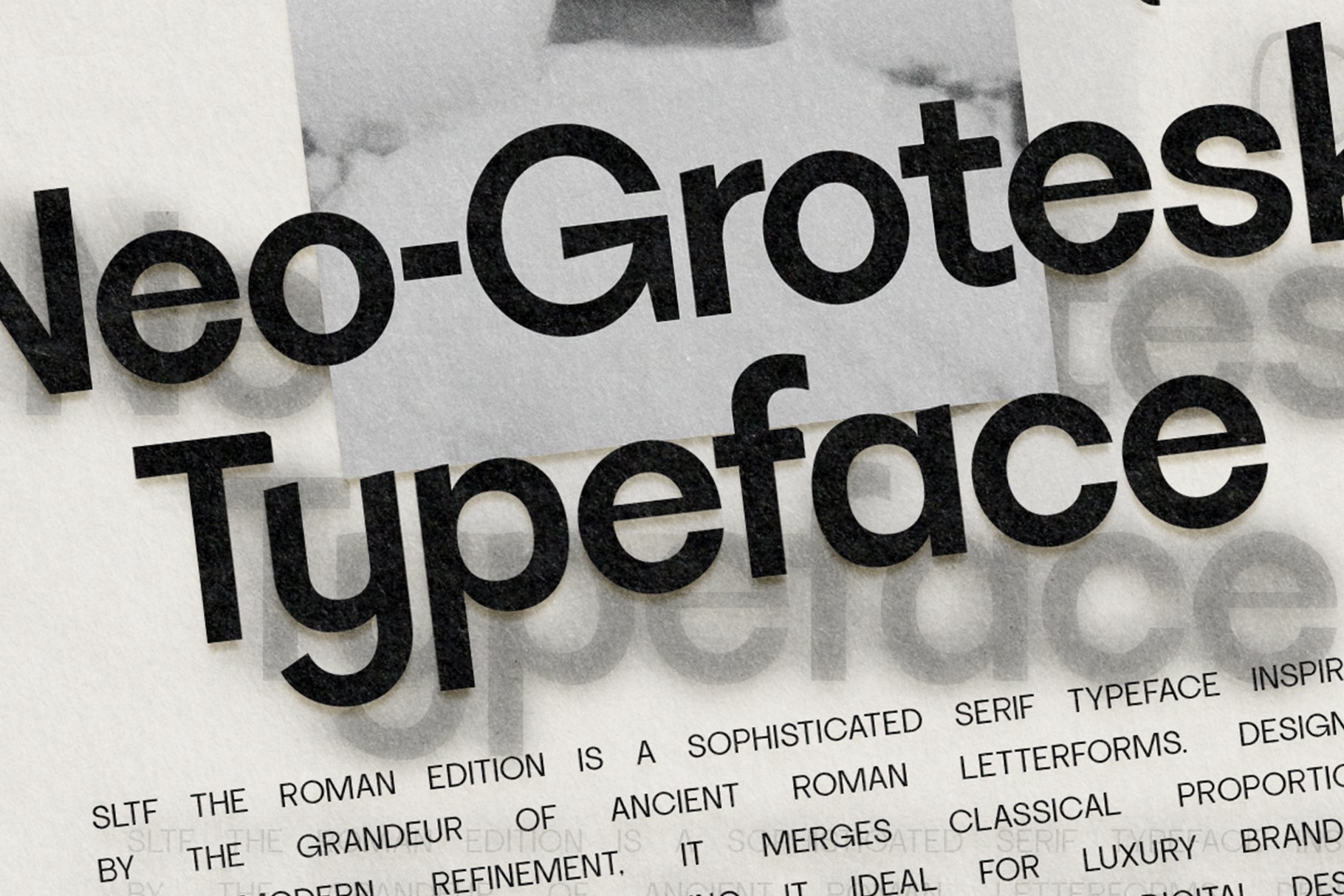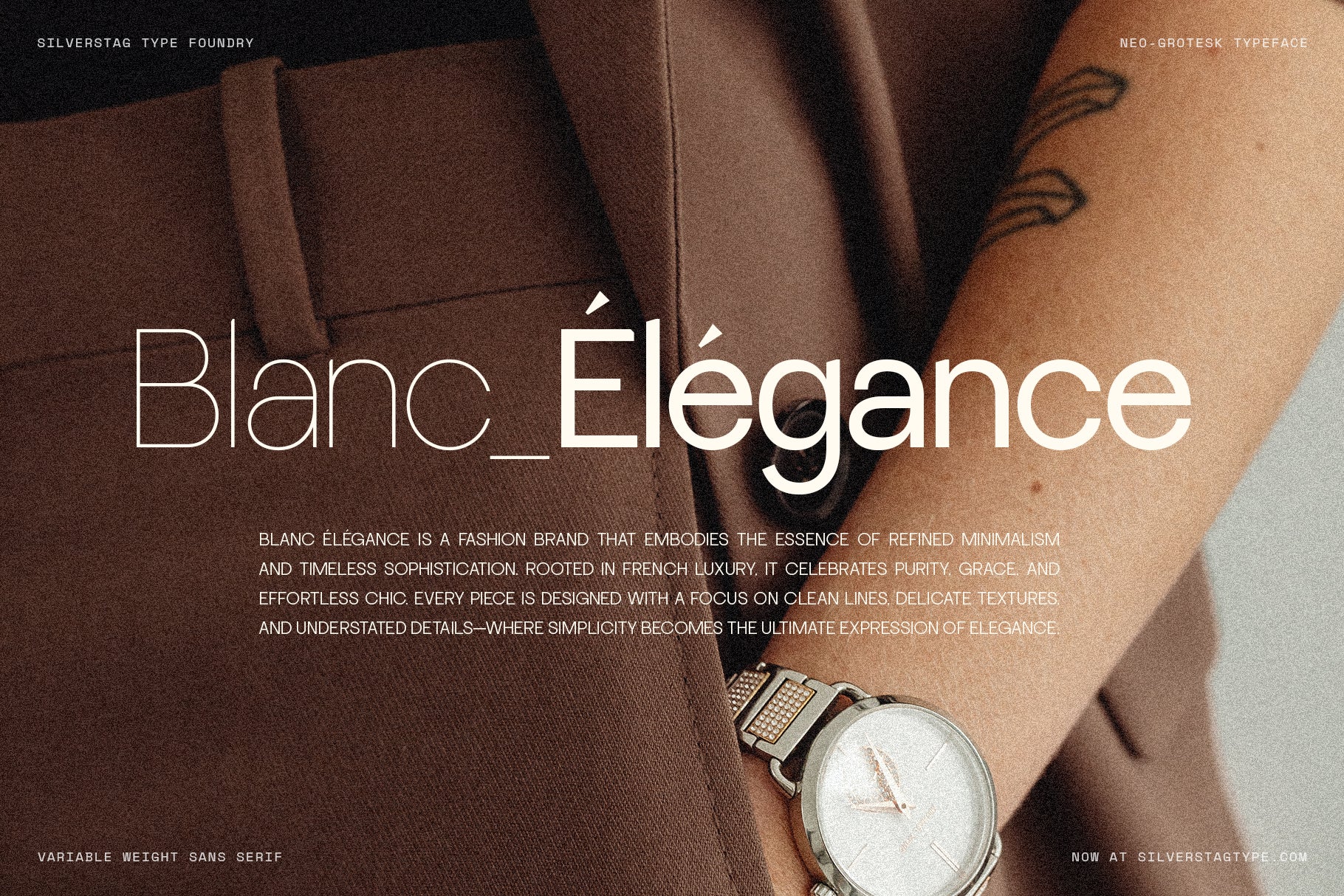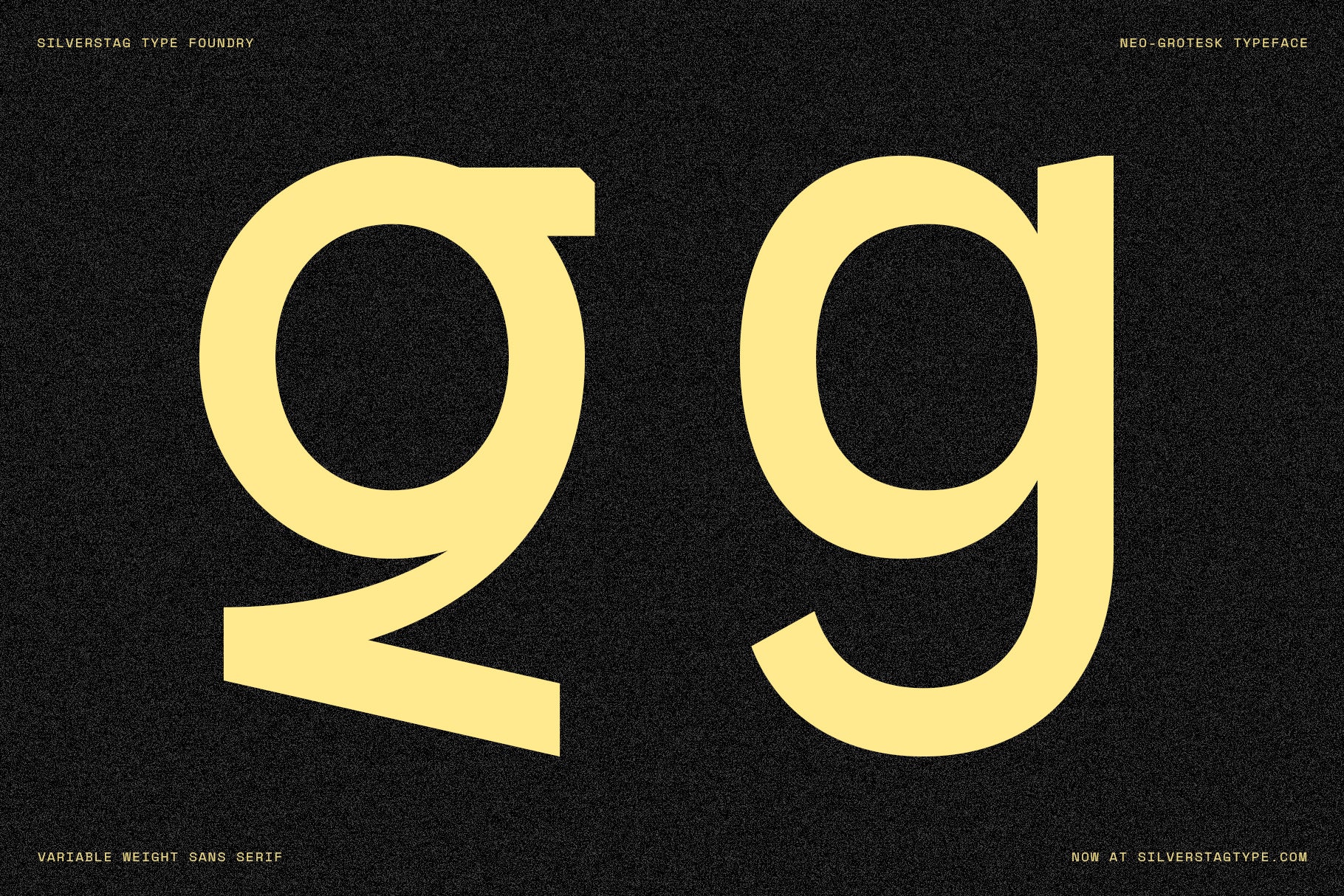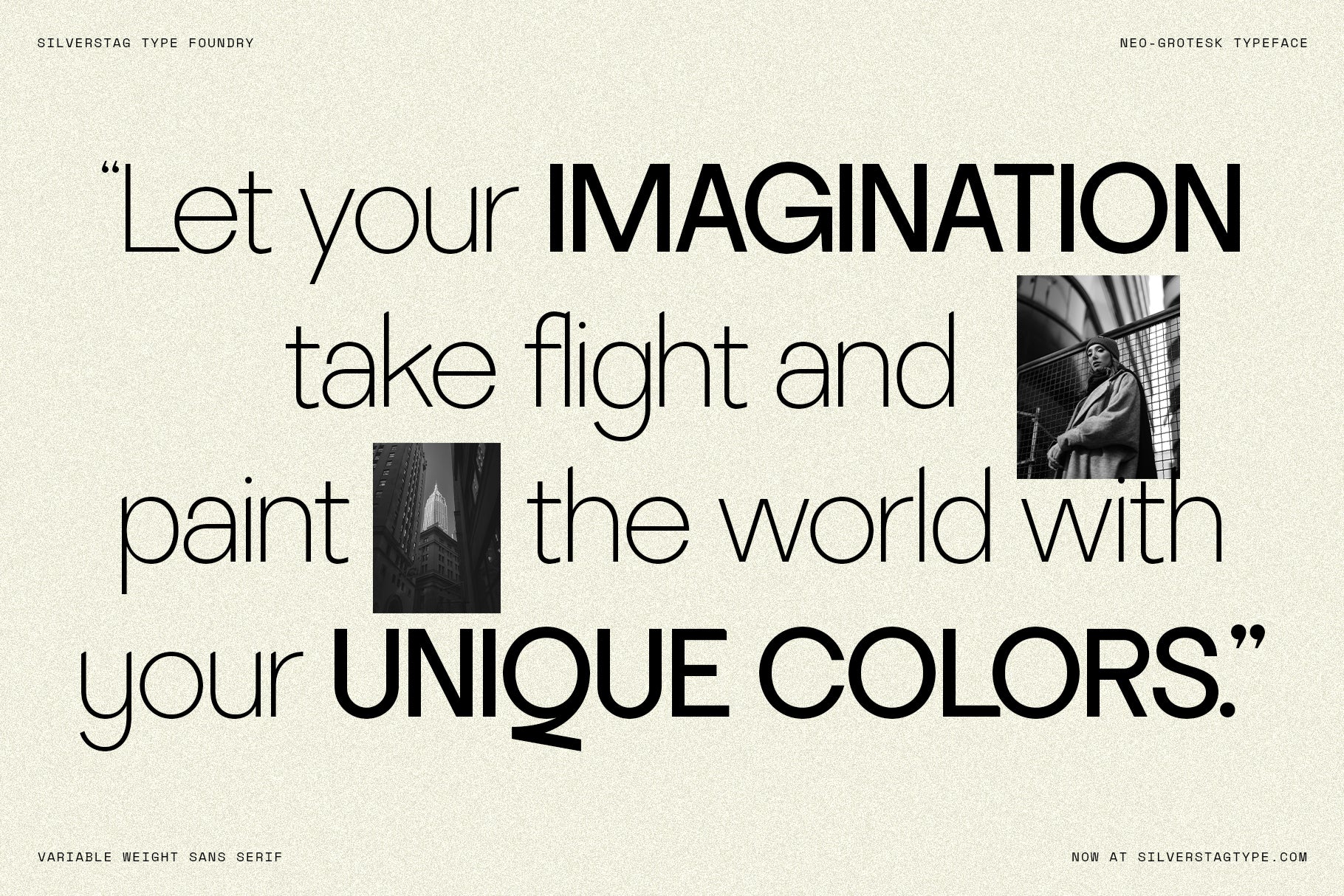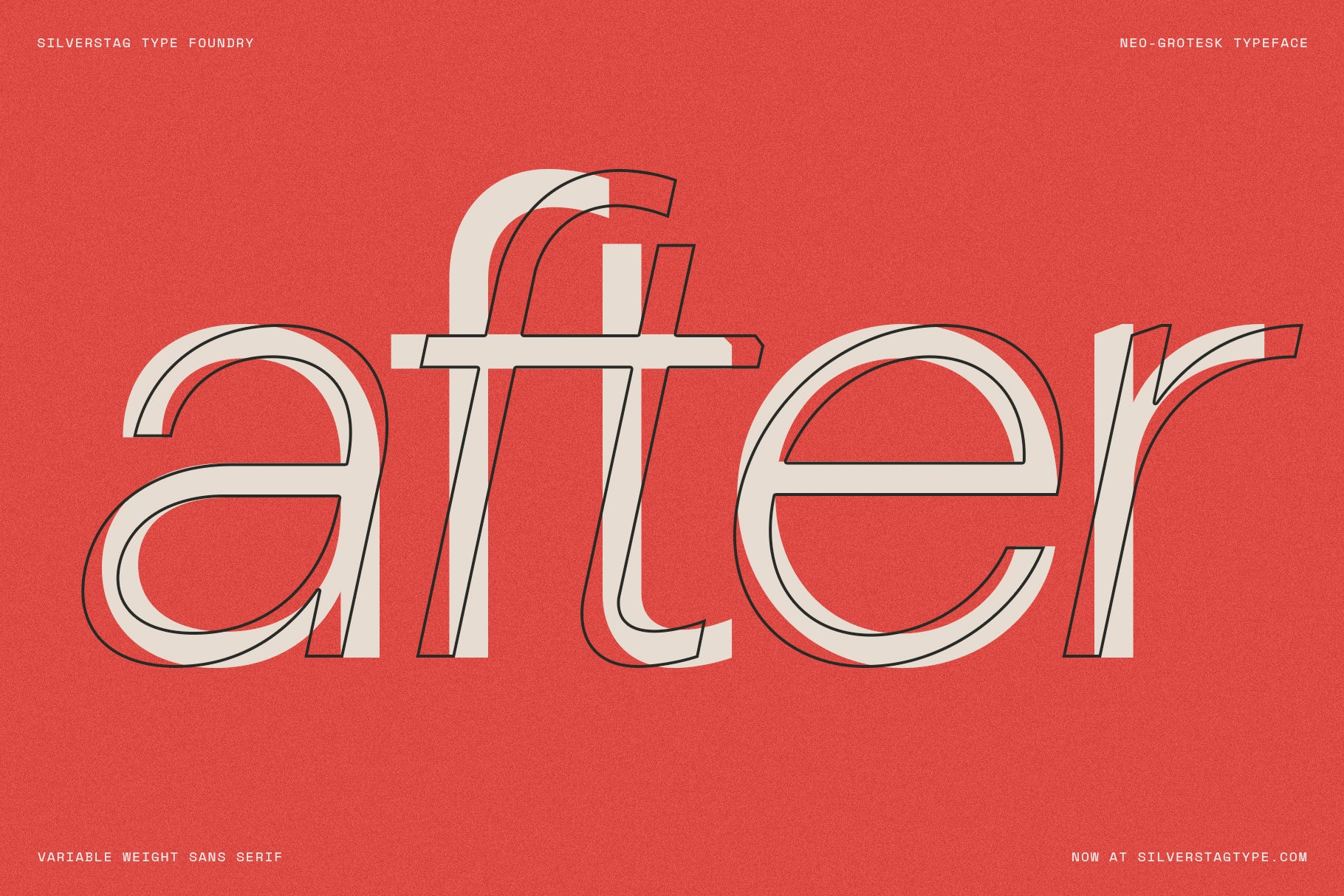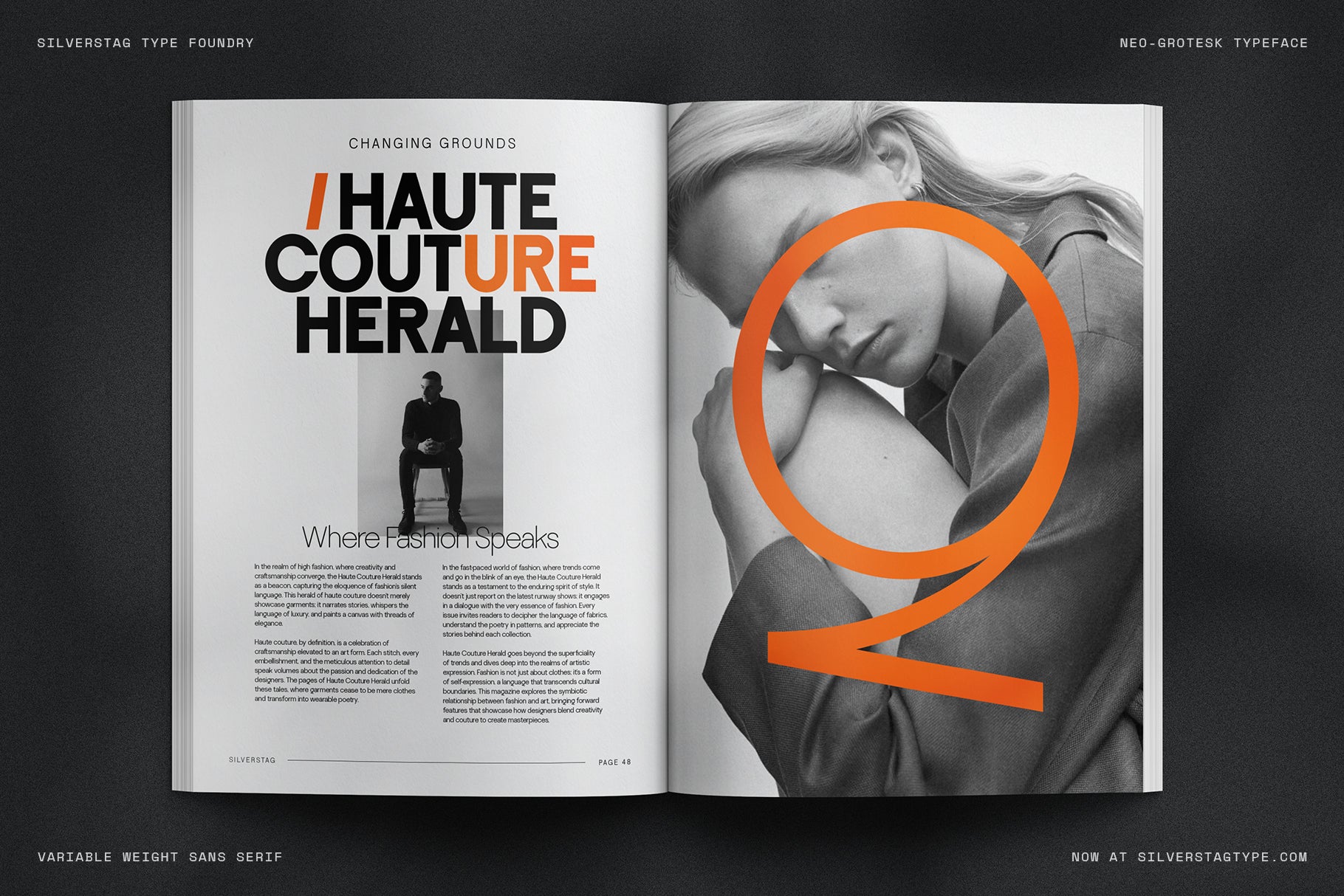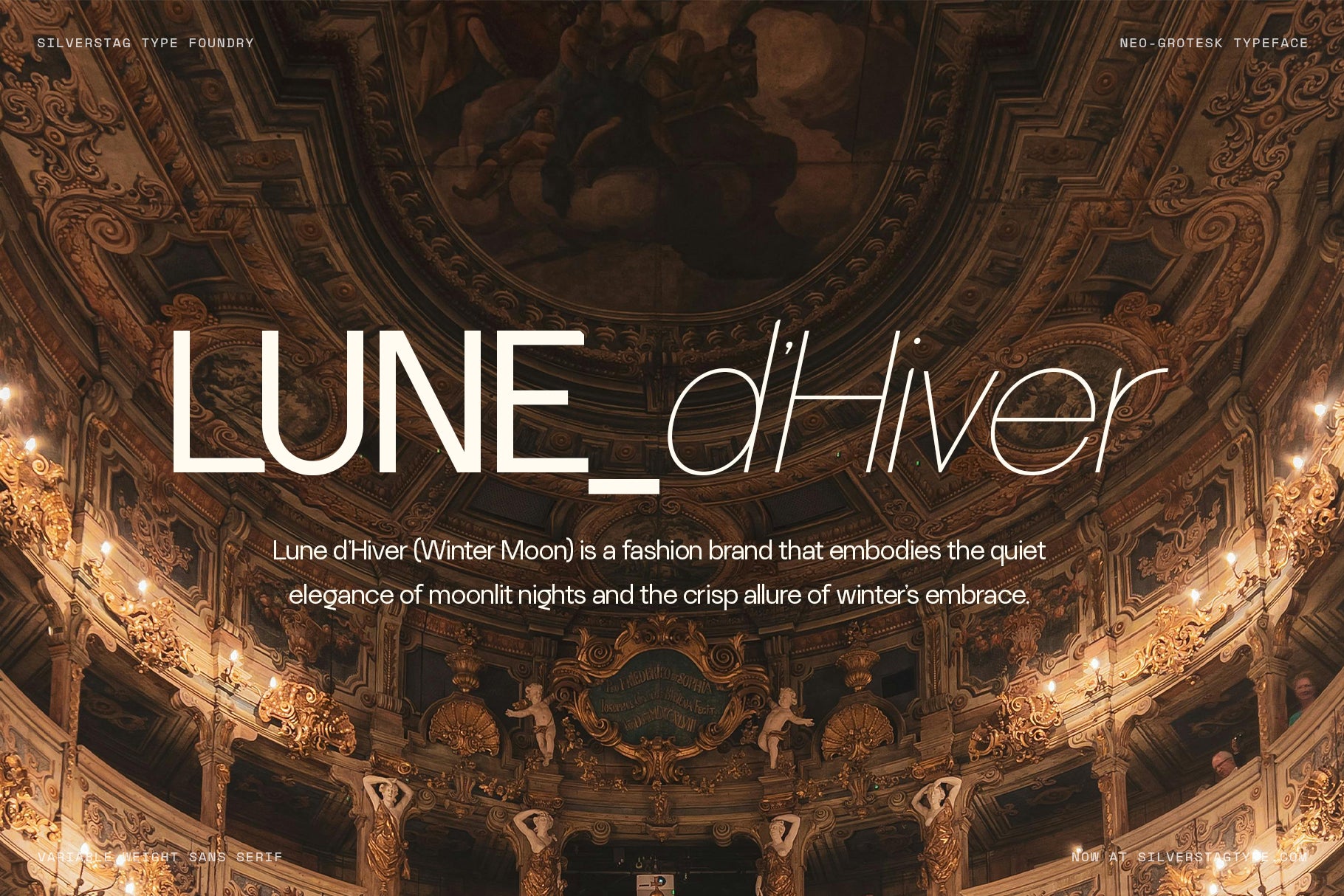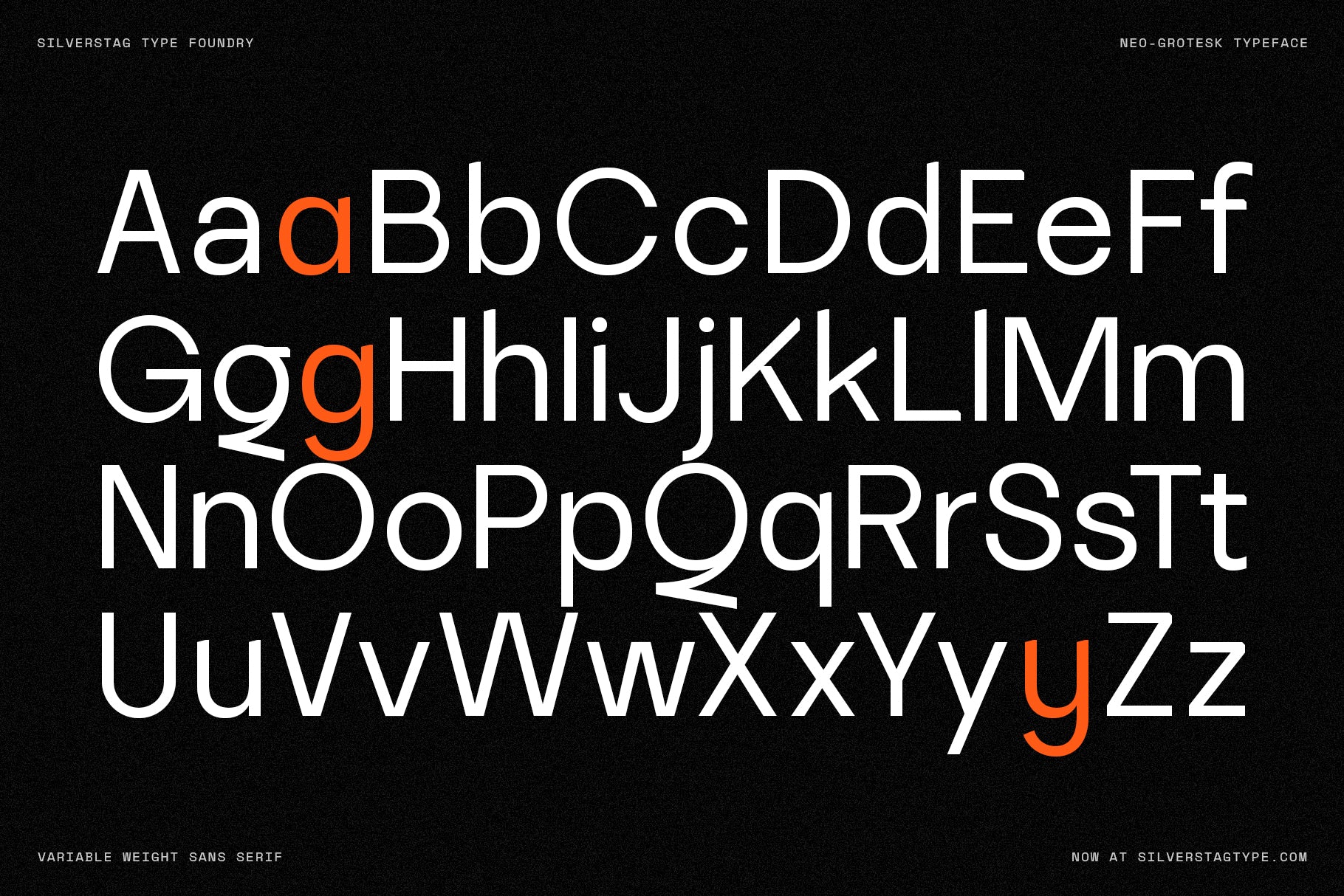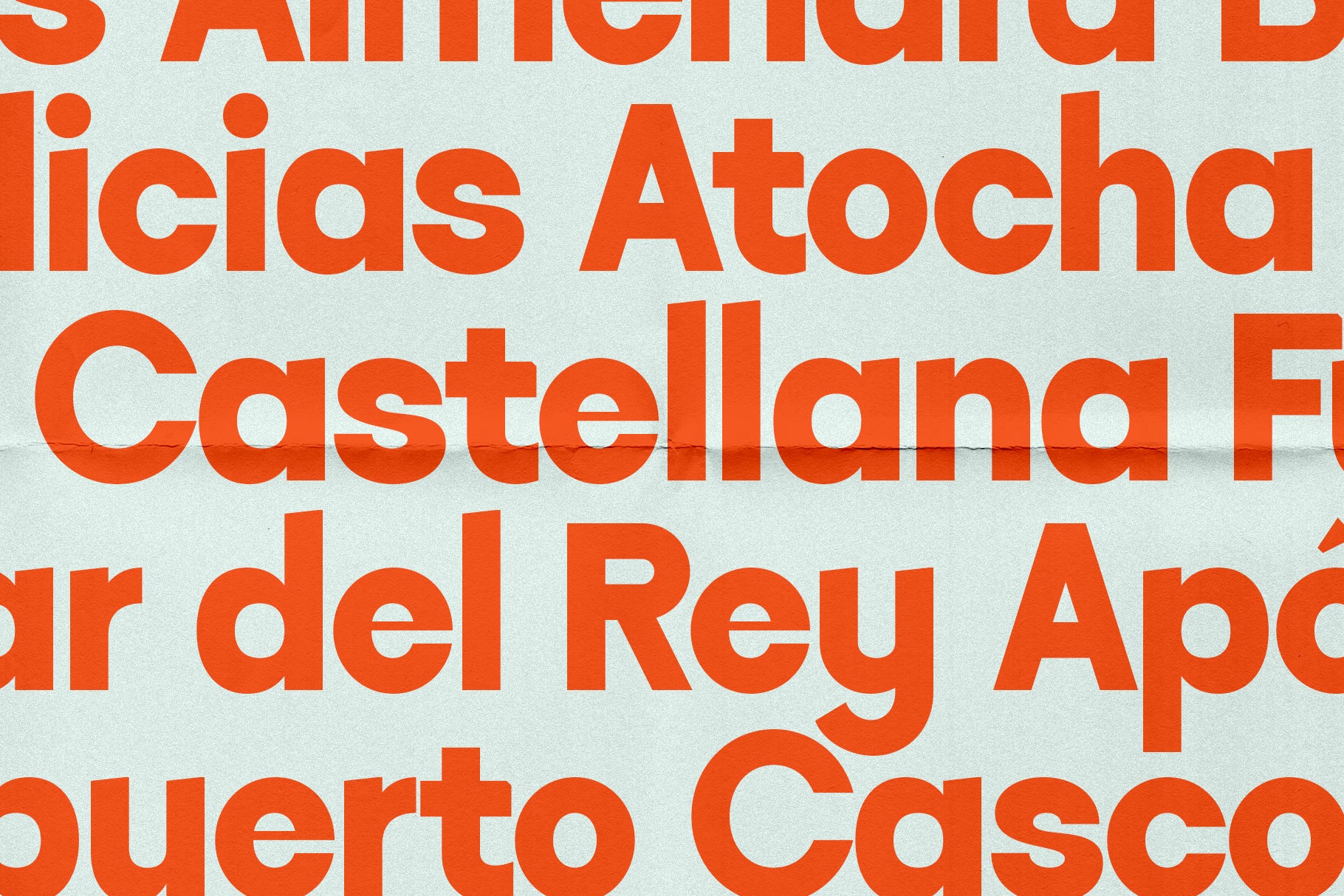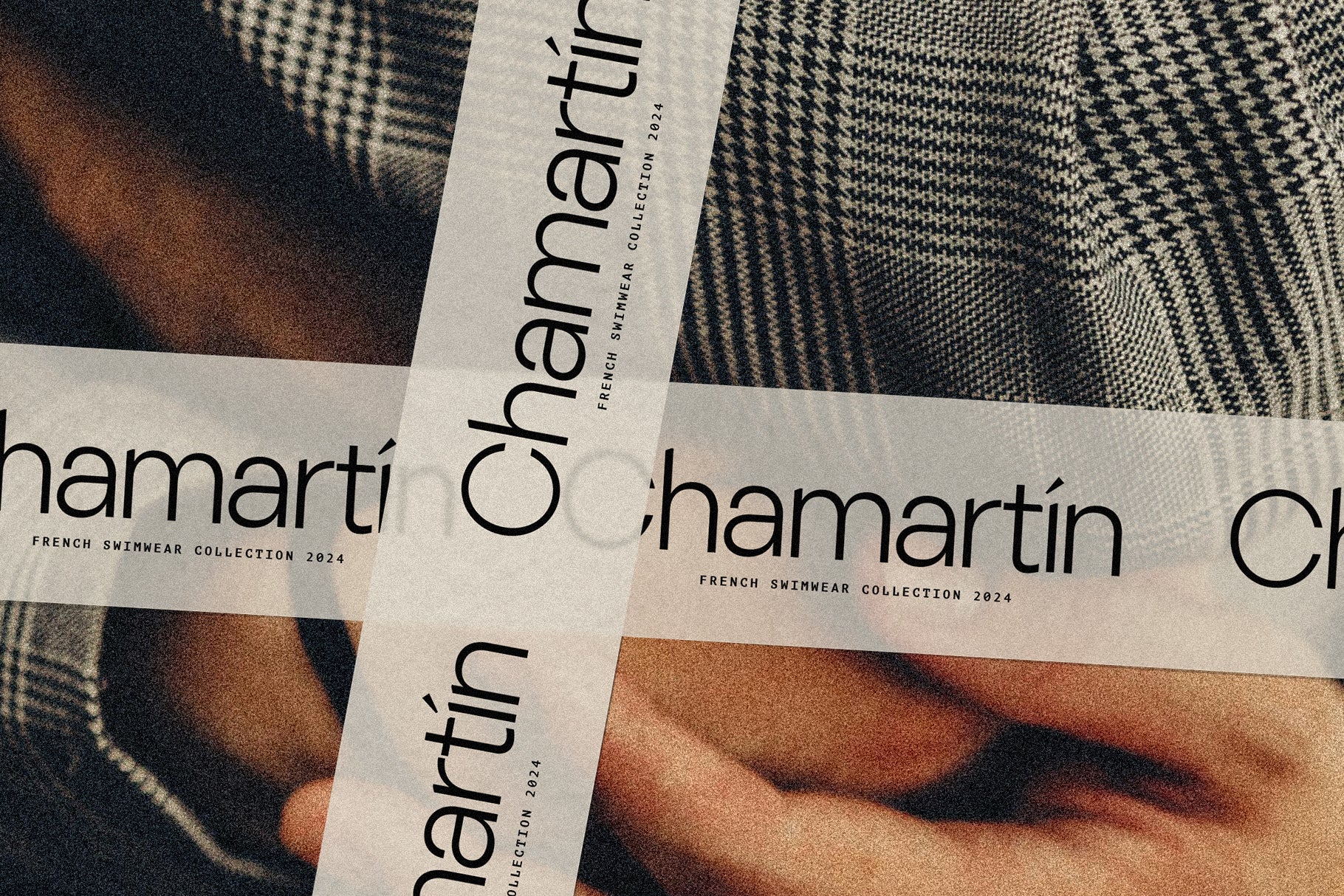
In Spain, la villa can mean many things. For older generations in Madrid, it’s a nostalgic way of referring to their city – a place of deep roots, personal stories, and timeless charm. More broadly, la villa evokes the essence of intentional living: refined spaces, balanced design, and an understated kind of elegance. That layered meaning inspired SLTF LaVilla – a neo-grotesk sans serif typeface that blends modern clarity with a quiet, sophisticated energy.
LaVilla is a font family designed to be versatile and confidently understated. It comes in 18 styles (Light to Black plus italics) and also includes a variable font file. Built for effortless readability and subtle elegance, it works beautifully in branding, packaging, publishing, websites, and editorial design.
Whether you’re working on fashion, tech, wellness, or lifestyle projects, LaVilla adapts without shouting. Its rounded details, clean geometry, and modern proportions give you a timeless, stylish aesthetic that feels crisp and future-proof.
From hero headlines to refined body text, LaVilla lets you design with intention. It’s optimized for digital and print, supports over 90 languages, and is ready to bring minimalist beauty into your work.